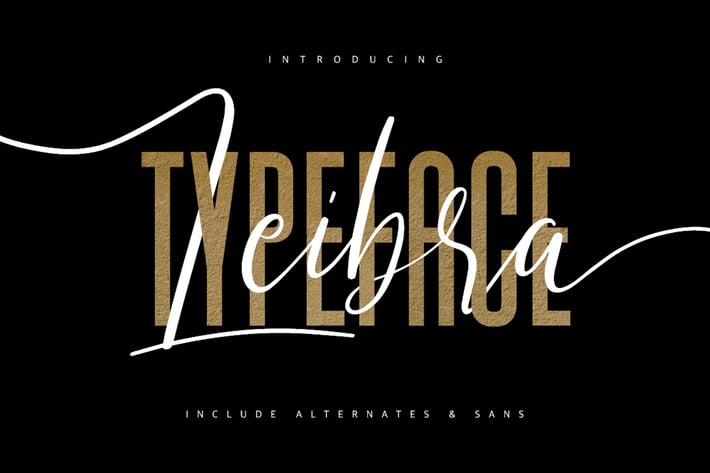
Leibra Typeface
Give your designs an authentic handcrafted feel. "Leibra" is perfectly suited to signature, stationery, logo, typography quotes, magazine or book cover, website header, clothing, branding, packaging design and more. Included Stylistic Alternates.